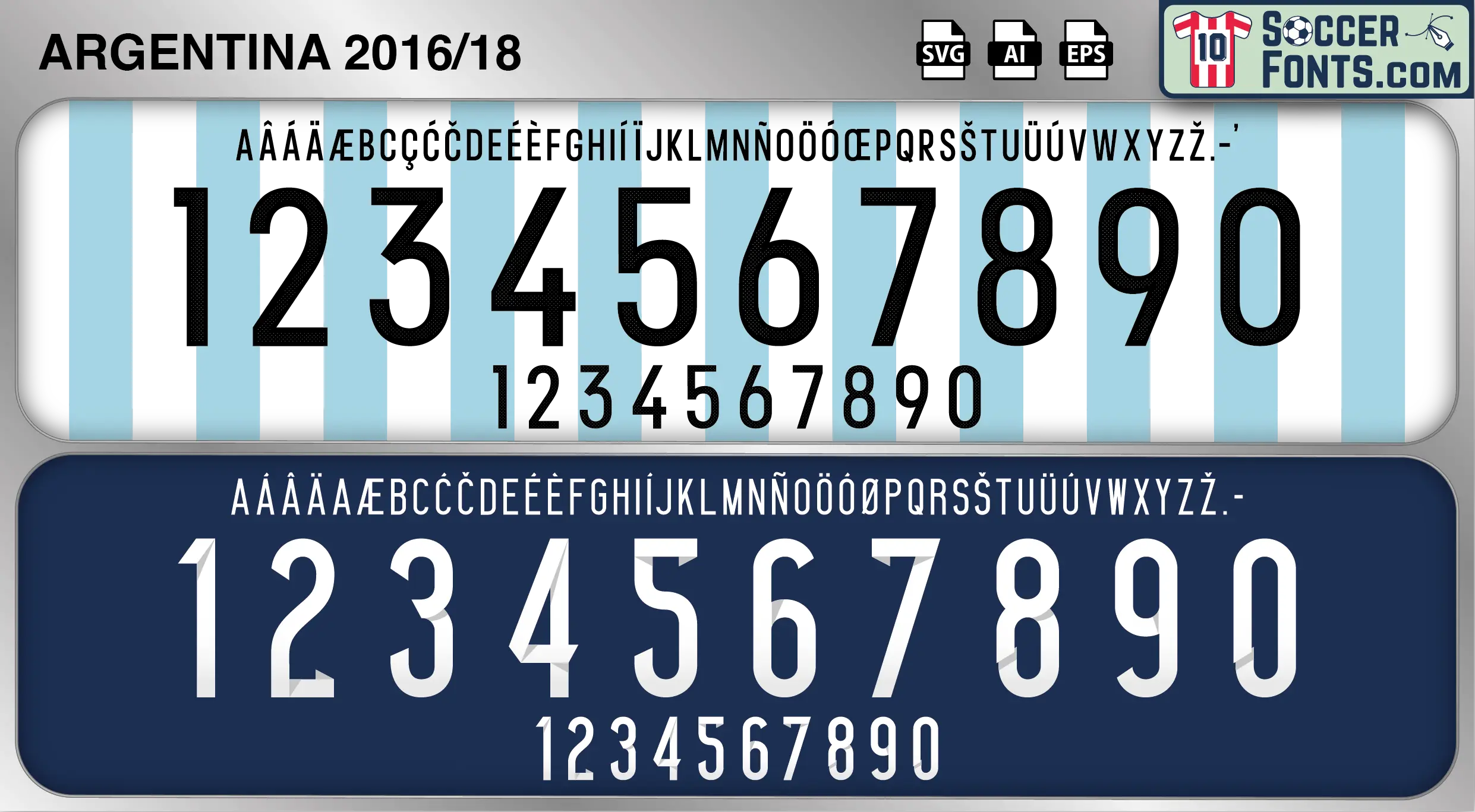
Argentina 2016-18 Font
The Argentina 2016-18 font is an editable soccer jersey lettering design in vector format inspired by the Argentina kit style used during the 2016-18 football seasons. This football font artwork is prepared for football shirt recreations, custom jersey projects, football kit mockups and sports graphic design workflows.
The 2016-18 era was one of the most turbulent and dramatic periods in modern Argentine football. Following the Copa América Centenario Final, uncertainty surrounded the future of the national team before Lionel Messi reversed his decision to retire from international football. Argentina faced a difficult qualification campaign for the 2018 FIFA World Cup and relied on crucial performances from Messi to secure a place in the tournament. Alongside players such as Ángel Di María, Javier Mascherano, Sergio Agüero and Paulo Dybala, the national team continued carrying the expectations of one of football’s most passionate supporter bases.
The Argentina 2016-18 font became associated with the determination of a generation that overcame significant challenges to reach another World Cup. Argentina shirts from this era remain highly recognizable because of their connection with Messi’s leadership and some of the most dramatic moments of South American World Cup qualification. The Argentina 2016-18 font reflects a period of resilience and transition within Argentine football, capturing an era when the national team navigated uncertainty while remaining one of the most watched and discussed sides in international football.